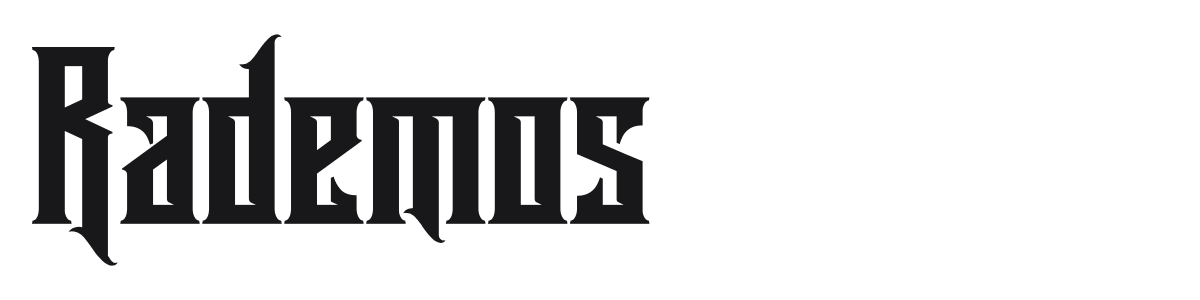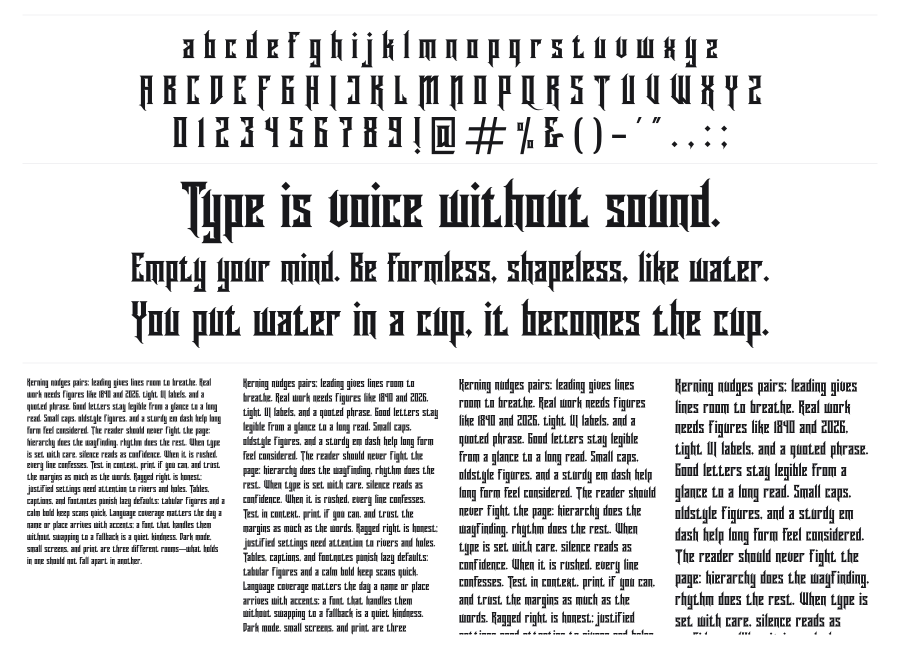
Rademos
Rademos is a bold gothic blackletter with sharp pointed terminals and dramatic stroke contrast. The angular construction pulls from medieval manuscript traditions while landing firmly in metal, street, and tattoo culture. It commands attention at headline sizes and suits any project that needs a dark, powerful presence.